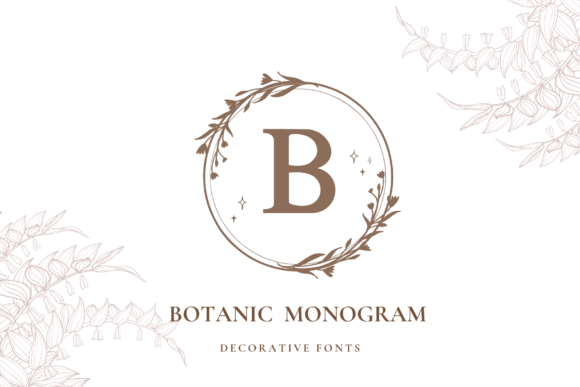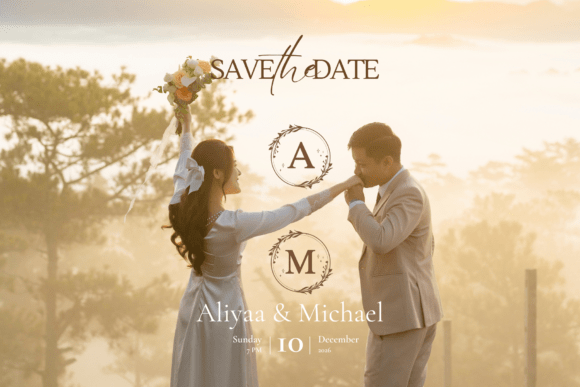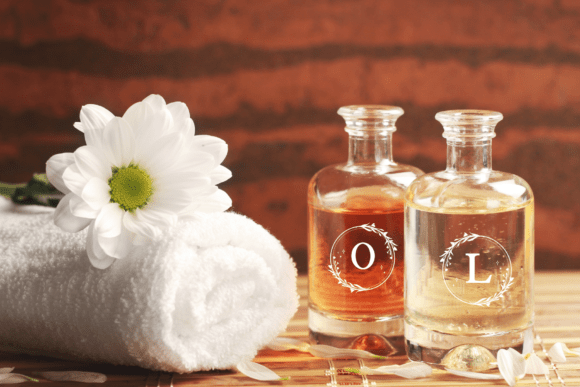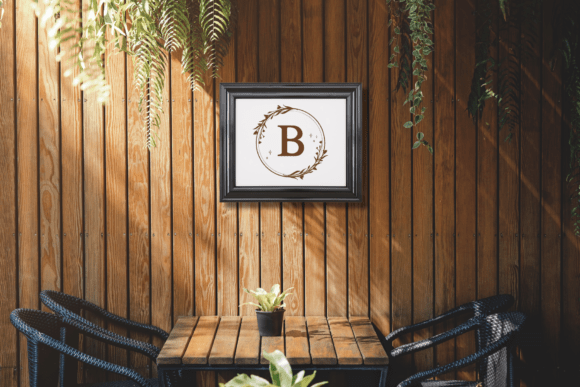
Botanic Monogram Font
About the Botanic Monogram Font
The Botanic Monogram Font is here to transform your projects with its distinctive character and style. Botanic Monogram is an elegant font designed for special occasions. It features decorative letters inside a beautiful leaf frame, making it perfect for invitations and wedding cards. This font adds a touch of charm and sophistication to any celebration!
Botanic Monogram’s elegant, decorative style is ideally suited for projects requiring a touch of refined sophistication. It excels in applications such as wedding stationery, luxury branding, and high-end product packaging where its ornate details can be fully appreciated. Use it sparingly; it’s not suitable for body text or UI elements due to its low readability at smaller sizes.
This font’s personality is undeniably elegant and romantic. To complement this, consider pairing it with a clean sans-serif like Lato for body copy or a classic serif like Garamond for supporting text. For a more modern feel, a geometric sans-serif such as Montserrat could provide a striking contrast.
Avoid using Botanic Monogram in contexts demanding high readability or large blocks of text. Its ornate nature is best showcased in short, impactful statements, logos, or headings.
Botanic Monogram Font Usage Examples
Botanic Monogram Font Example